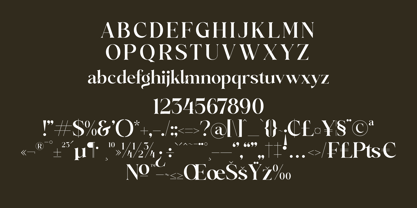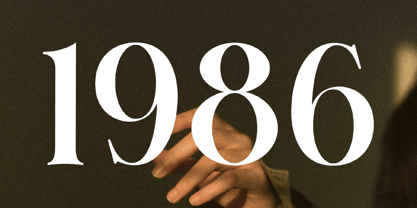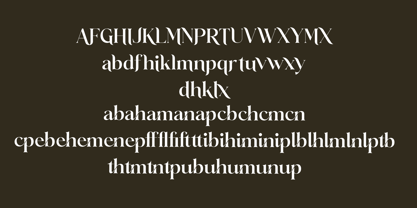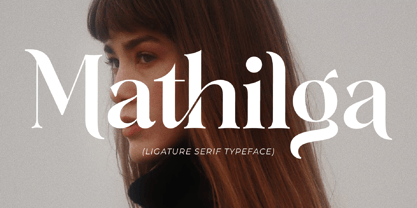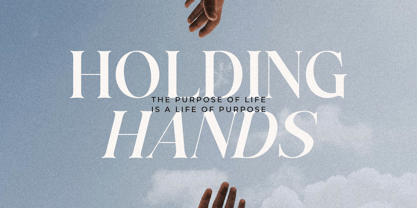
Mathilga
The Mathilga Font Family was designed by Heru Utama Putra and published by Letterena Studios. Mathilga contains 2 styles and family package options. More about this family
Mathilga is a modern and classic serif font with a unique style and fancy look.
This typeface is perfect for an elegant & luxury logo, book or movie title design, fashion brand, magazine, clothes, lettering, quotes, and so much more. This font is PUA encoded, which means you can access all of the glyphs and swashes with ease!